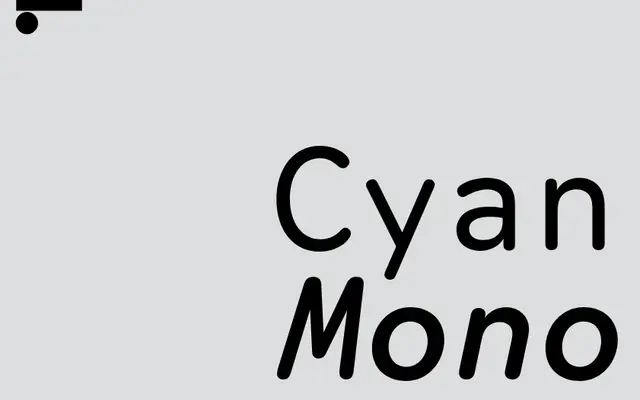
LL Cyan Mono
Lineto · Aurèle Sack · 2019
A monospaced humanist sans derived from Jan Tschichold's 1942 Redis-nib writing exercises, developed by Aurèle Sack into a five-weight family with an unusually warm and rhythmic character.
Rooted in a 2003 ECAL exercise referencing Tschichold's equal-stroke Redis-nib lettering, the design was fully developed by Sack from 2019 onwards. Where other Redis-inspired alphabets leaned geometric, Tschichold's originals stayed closer to the tradition of Gill and Johnston, and Sack amplified that tendency by introducing subtle contrast, smooth joints and calibrated rounded terminals. The three monospaced weights sit on the wider side of the genre, lending a raw, technical feel that sits alongside the warmth of the underlying hand-drawn source.
A monospaced variant of a humanist sans derived from Jan Tschichold's Redis-nib writing exercises; monolinear construction with deliberate humanist warmth distinguishes it from geometric or neutral monospaceds.